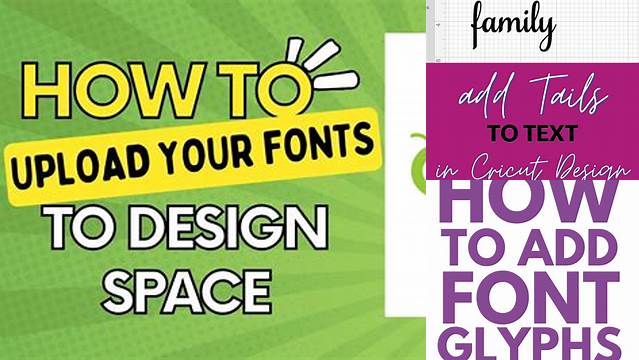
Cricut Design Space Fonts With Tails: The Ultimate Guide
Hey crafters! Are you looking to add a touch of elegance and whimsy to your Cricut projects? Then you're in the right place! In this guide, we'll dive deep into the world of Cricut Design Space fonts with tails. These beautiful fonts, also known as swash fonts, can elevate your designs from simple to stunning. Whether you're creating personalized gifts, home decor, or custom apparel, mastering these fonts will unlock a whole new level of creativity. So, grab your Cricut machine, and let's get started!
1. Understanding Swash Fonts for Cricut
So, what exactly are swash fonts, and why are they so popular for Cricut projects? Swash fonts are fonts that include decorative extensions, or “tails,” on certain letters. These tails can add a flourish or a unique touch to your designs, making them look more elegant and personalized. When it comes to Cricut Design Space fonts with tails, understanding how these fonts work within the software is crucial. You need to know how to access the tails, how to manipulate them, and how to ensure they cut correctly with your machine. Many crafters find that these fonts add that special something that makes their projects stand out. Learning to use them effectively opens a world of creative possibilities. Plus, they are super fun to play around with, so you might find yourself experimenting with different combinations just for kicks!
3. Accessing Font Glyphs in Design Space
Okay, so you've got your Cricut Design Space fonts with tails installed. Great! But how do you actually access those fancy tails? This is where character map programs come in handy. On Windows, you can use the built-in Character Map. On a Mac, you can use Font Book. These programs allow you to see all the glyphs (special characters) included in your font. Find the letter with the tail you want, copy it, and then paste it into your text in Design Space. Another option is to use a third-party glyph manager, which can make the process even easier. Once you get the hang of using the character map, you'll be able to quickly add those beautiful swashes to your designs. Mastering this technique is key to truly unlocking the potential of Cricut Design Space fonts with tails. So, don't skip this step – it's worth the effort!
4. Best Cricut Fonts with Tails
Looking for some awesome Cricut Design Space fonts with tails to get you started? Here are a few of my favorites! Samantha Script is a classic choice, known for its elegant and flowing tails. Aphrodite Pro is another great option, offering a variety of swashes and alternates. And don't forget about Hello Honey – a cute and playful font with adorable little tails. When choosing a font, consider the style of your project. A more formal event might call for an elegant script, while a kids' birthday party might be perfect for a playful font. Also, think about readability. While tails can add beauty, you want to make sure your text is still easy to read. Experiment with different fonts and find the ones that best suit your personal style and project needs. With so many fantastic options out there, you're sure to find the perfect Cricut Design Space fonts with tails for your next creation!
5. Combining Fonts with Tails
One of the coolest things you can do with Cricut Design Space fonts with tails is to combine them with other fonts. This can add visual interest and create a more dynamic design. Try pairing a script font with a sans-serif font for a modern look. For example, you could use a swash font for a name and a simple sans-serif font for the date. When combining fonts, pay attention to the overall balance and harmony of the design. You want the fonts to complement each other, not compete. Also, consider the weight and size of the fonts. You might need to adjust them to create a cohesive look. Don't be afraid to experiment! Font pairing is an art, and the best way to learn is by trying different combinations. You might be surprised at what you come up with! With a little practice, you'll be creating stunning designs with perfectly paired Cricut Design Space fonts with tails.
6. Using Tails to Embellish Designs
Tails aren't just for adding to the beginning or end of words, guys! You can use Cricut Design Space fonts with tails to embellish your designs in all sorts of creative ways. Try extending a tail to create a flourish around an image or using a tail to connect two different elements of your design. You can even use tails to create a decorative border or frame. The possibilities are endless! Just let your imagination run wild. When embellishing, keep in mind the overall balance of your design. You don't want the tails to overwhelm the other elements. Use them strategically to add visual interest and enhance the overall aesthetic. And remember, practice makes perfect! The more you experiment with Cricut Design Space fonts with tails, the better you'll become at using them to create stunning embellishments.
7. Kerning Fonts with Tails in Design Space
Kerning – it's the spacing between letters, and it's super important when working with Cricut Design Space fonts with tails. Because of those fancy swashes, the default kerning in Design Space might not always look the best. Letters can end up too close together or too far apart. To fix this, you'll need to manually adjust the letter spacing. Select your text and use the letter space tool in Design Space to fine-tune the kerning. Pay close attention to the way the tails interact with the other letters. You might need to make some adjustments to ensure that everything looks balanced and harmonious. Good kerning can make a huge difference in the overall appearance of your design, so don't skip this step. It's the key to making your Cricut Design Space fonts with tails look their absolute best!
8. Welding Script Fonts with Tails
When working with script Cricut Design Space fonts with tails, welding is your best friend. Welding combines overlapping letters into a single shape, ensuring that your Cricut cuts the design as one continuous piece. This is especially important for script fonts because it prevents the machine from cutting each individual letter separately, which can result in a messy and unprofessional look. To weld your text, select it and click the "Weld" button in Design Space. Before welding, make sure your letter spacing is exactly how you want it, because you won't be able to adjust it after welding. Welding is a simple but essential step for working with script Cricut Design Space fonts with tails, and it will make a huge difference in the quality of your finished projects.
9. Using Font Bundles with Swash Fonts
Font bundles can be a fantastic way to get a variety of Cricut Design Space fonts with tails at a discounted price. Many websites offer bundles that include a selection of script fonts, display fonts, and other design elements. This can be a great way to expand your font library and experiment with different styles. When choosing a font bundle, pay attention to the licensing terms. Make sure the fonts are licensed for commercial use if you plan to sell your creations. Also, check the included glyphs to ensure that the fonts have the tails and swashes you're looking for. With a little research, you can find some amazing font bundles that will take your Cricut Design Space fonts with tails projects to the next level!
19. Font Size Considerations for Cricut Cutting
When working with Cricut Design Space fonts with tails, font size is a crucial consideration. Smaller fonts can be difficult for the Cricut to cut cleanly, especially with intricate swashes and tails. To avoid this, it's generally recommended to use larger font sizes, especially for detailed designs. Experiment with different font sizes to see what works best for your particular font and material. You can also use the